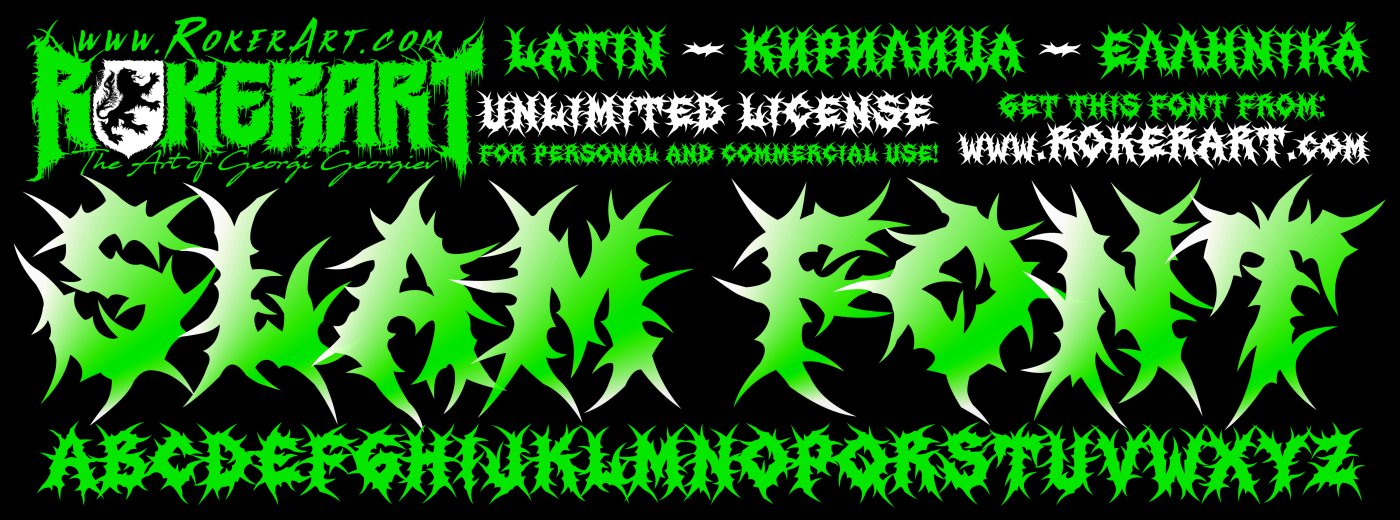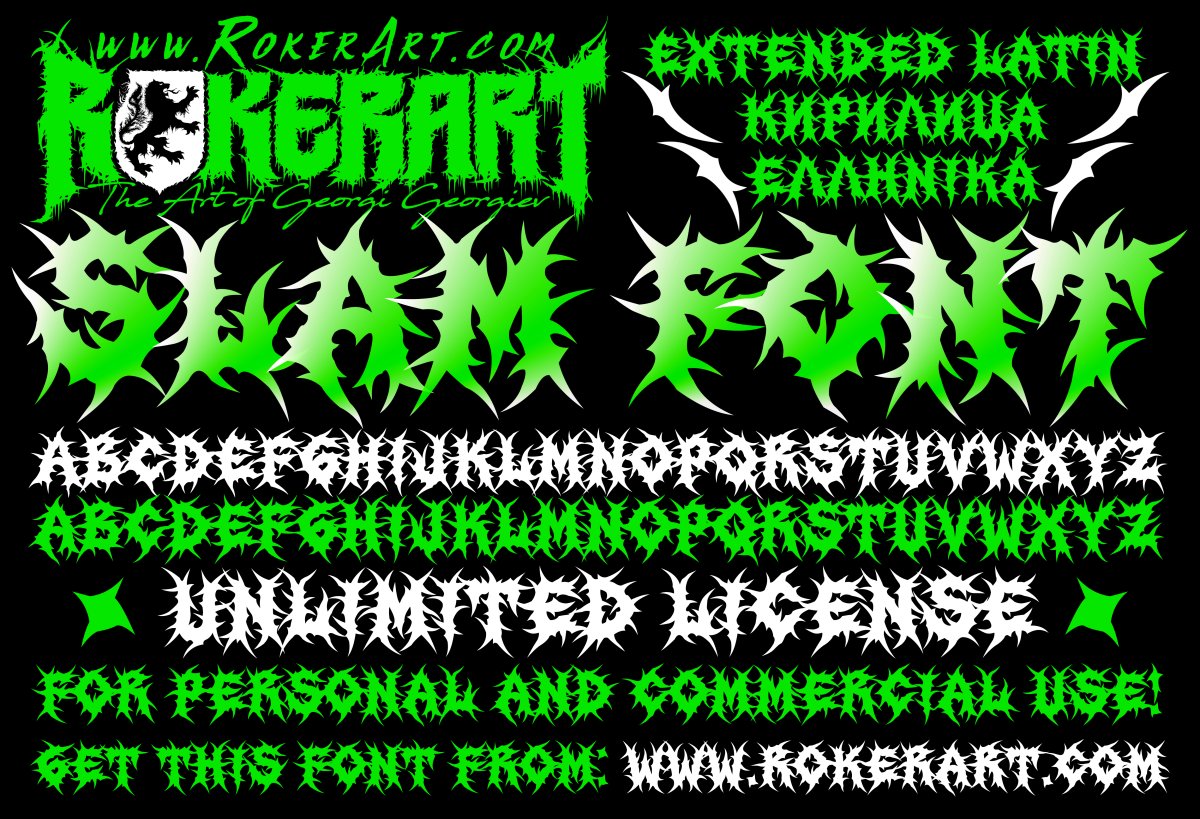
Slam Font
RokerArt presents: Slam Font – total Death Metal typeface!
A typical death metal style font with a very bold look, strong, edgy, and spiky for a great visual impact and uncompromising expression!
The font consists exclusively of uppercase characters available in two variants—corresponding to standard uppercase and lowercase letters.
This allows you to select the perfect combination for creating your logo or lettering.
The font has a detailed design yet is light and optimized for easy use, even in video content if desired.
It is suitable for a wide range of design projects and includes all necessary letters, numbers, and symbols from the extended Latin, Cyrillic, and Greek character sets.